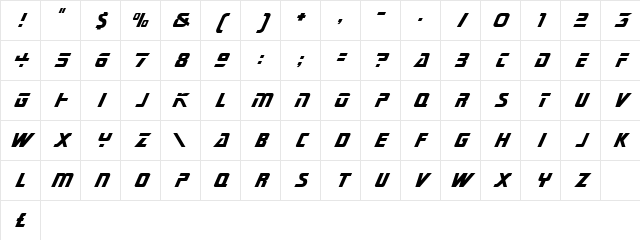
Complete Star Trek TNG-Title Regular glyph index. Displaying only characters natively supported by Star Trek TNG-Title Regular font.
Star Trek TNG-Title is a composed and adaptable typeface that performs quietly and consistently across a wide range of design contexts.